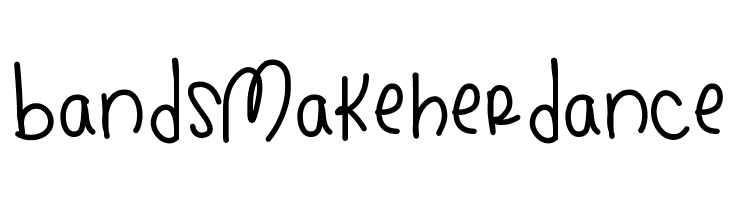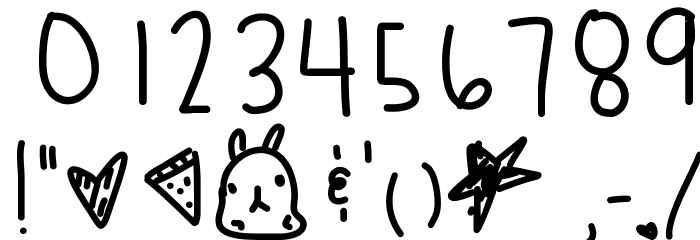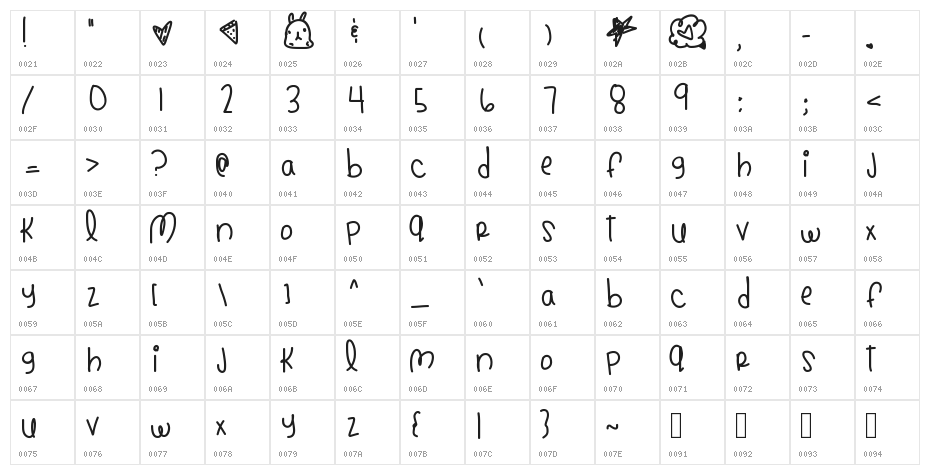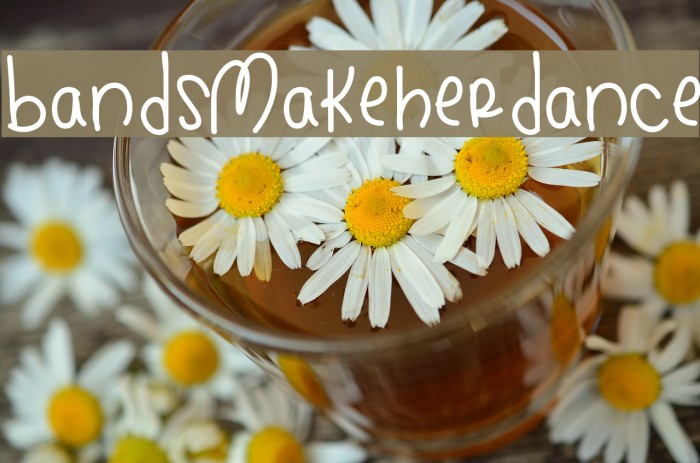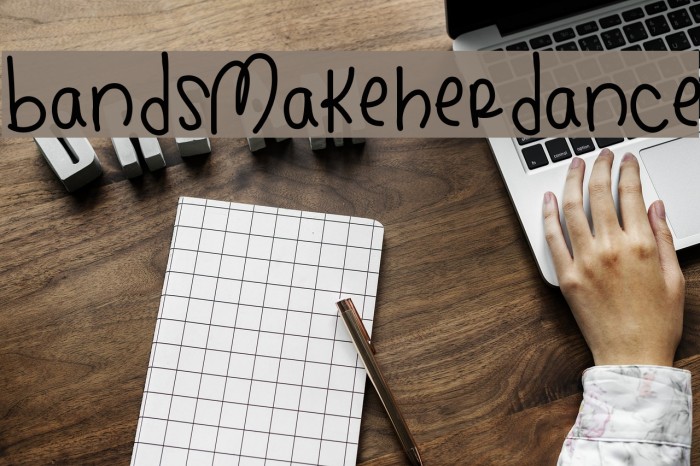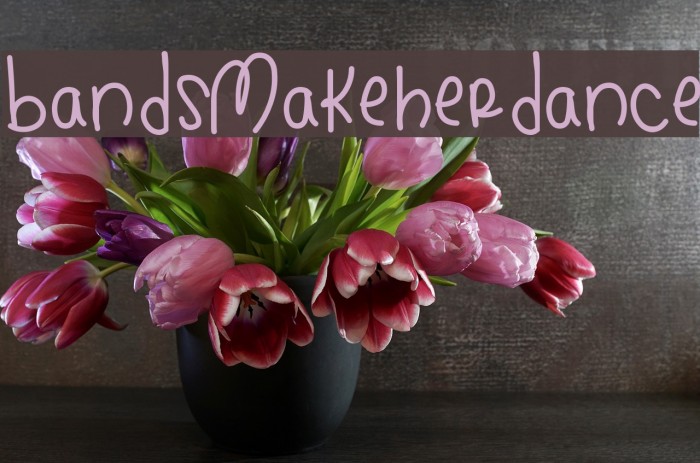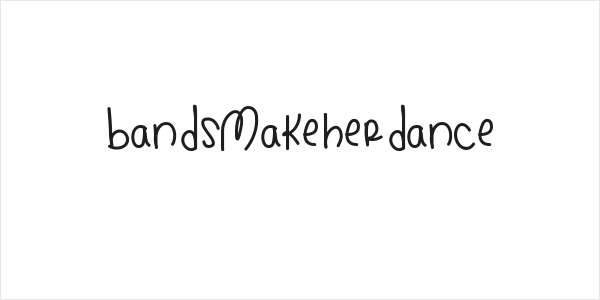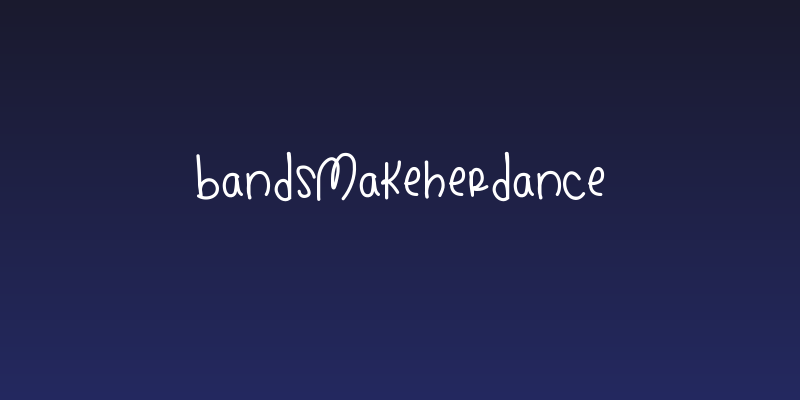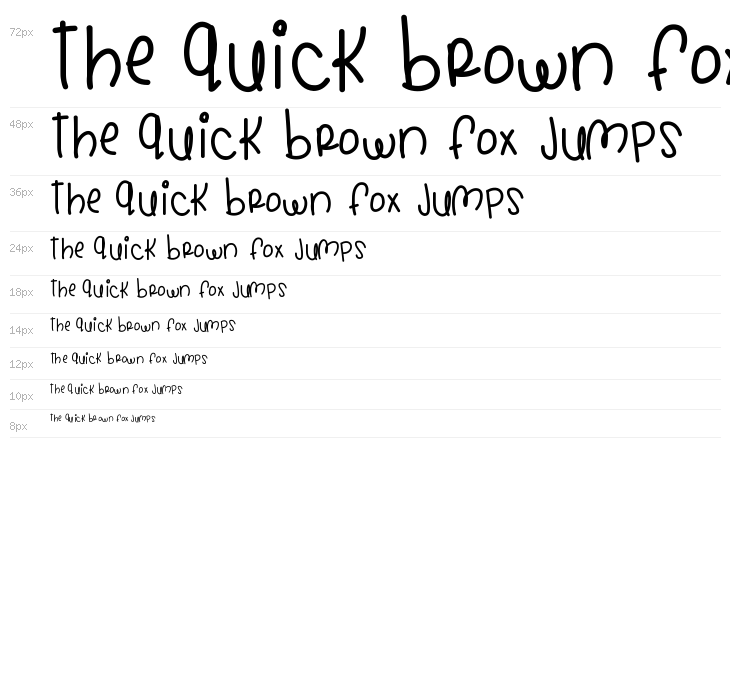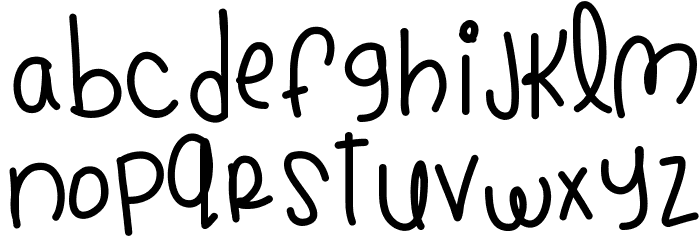
BandsMakeHerDance Font
BandsMakeHerDance Description
This playful and whimsical font features a handwritten style with a casual, informal appearance. The characters are slightly irregular, adding to the charm and personality of the font. The strokes are consistent in thickness, giving it a uniform look despite its freeform nature. The letters are rounded and smooth, with a friendly and approachable vibe. The numbers and special characters maintain the same playful style, making it suitable for creative and fun projects. The font's overall design is simple yet engaging, perfect for conveying a sense of joy and creativity.
| Proposed Projects | Ideal for children's books, greeting cards, playful branding, and creative social media graphics. |